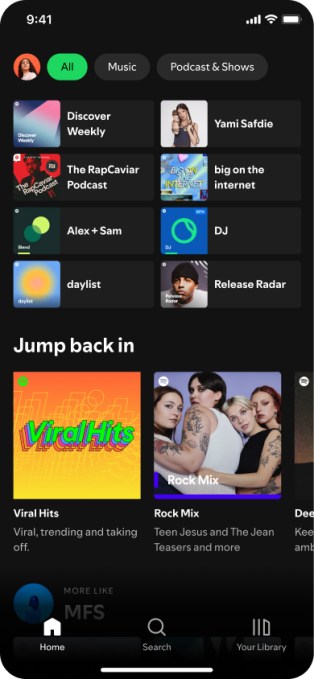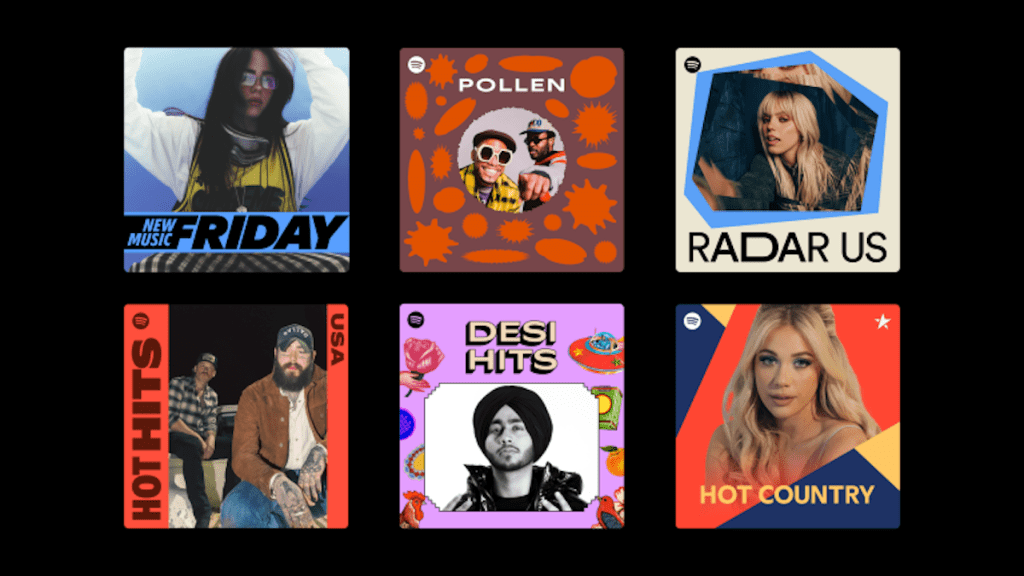
Spotify launched its own font, the company announced on Wednesday. The music streaming service hopes that its new typeface, “Spotify Mix,” will help Spotify distinguish its own unique visual identity.
Spotify Mix is a sans-serif typeface designed in partnership with Dinamo Typefaces, a Berlin-based type design studio that has worked with major companies, including Burberry, Discord, Nike, Patreon and Tumblr, among others. Sans-serif fonts are simpler looking than serif fonts and are popular among many brands, including tech giants Google and Microsoft. The font type is also known to be more accessible because it’s easier to read on smaller devices.
Spotify describes the new font as a “combination of sharp angles and smooth curves,” which gives it a “distinctive character,” Spotify’s global head of brand design, Rasmus Wängelin, wrote in the blog post.
“To design this typeface, we broke free from traditional typographic constraints and merger elements from a variety of font styles. This approach mirrors the dynamic and evolving nature of audio culture over the years,” Wängelin added.
Spotify Mix replaces the current font used on the platform, Circular, which Swiss designer Laurenz Brunner created.
Spotify Mix serves as an example for startups looking to establish a unique brand identity through the use of distinct font styles. While some may view a font change as minor, others believe that it has a substantial impact on how a business is perceived. A font like Comic Sans — widely considered to be the most disliked font due to its childish and unsophisticated nature — could evoke a strong, negative reaction from users, for instance.
Many major companies have undergone a font refresh to give their brands their own form of visual expression. In 2021, Twitter/X introduced its proprietary font, Chirp, to give it more personality and improve content legibility for users. When Instagram underwent a visual refresh, it introduced a new typeface. Microsoft’s ditching of Calibri as its default font in Office also made headlines. And years ago, when Google unveiled its new design language, Material Design, it included an updated version of its system font, Roboto.
Spotify Mix is gradually rolling out starting today and will continue to roll out over the next few weeks. It’s currently only available for content written in “all languages with Latin-based scripts, as well as Vietnamese,” the company said.